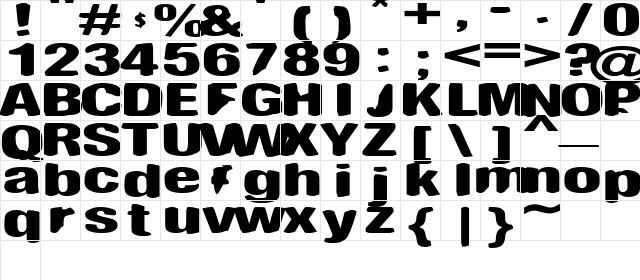
Antimony Funk Regular
Design Context for Antimony Funk Typeface
Antimony Funk trades formality for fun, with bouncy, characterful letterforms that bring warmth and energy to any project.
Great for children's books, toy packaging, family event branding, and casual consumer-facing design.
Font Pairing: Pairs well with a rounded or humanist sans for body copy, maintaining the friendly tone without relying on Antimony Funk to carry extended reading.
Pro Tip: Avoid using Antimony Funk for long passages of text — it works best for headlines, labels, and short calls to action.